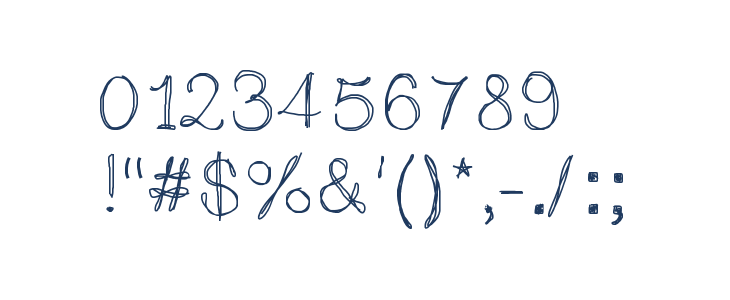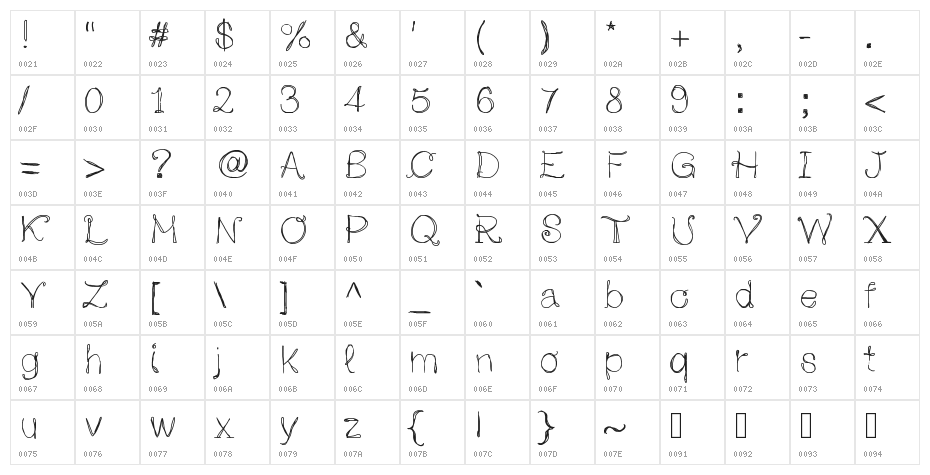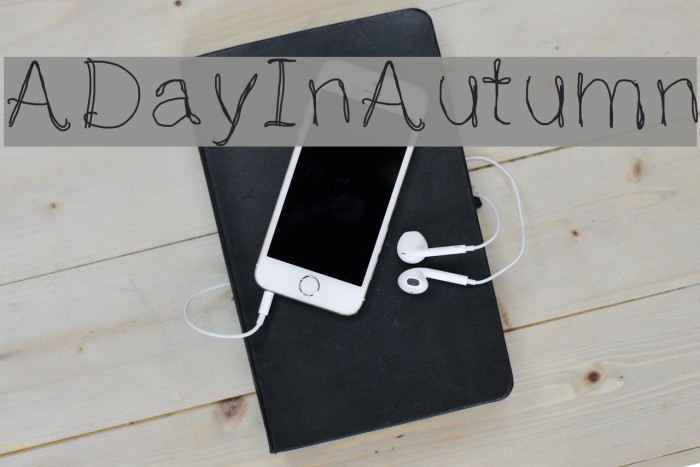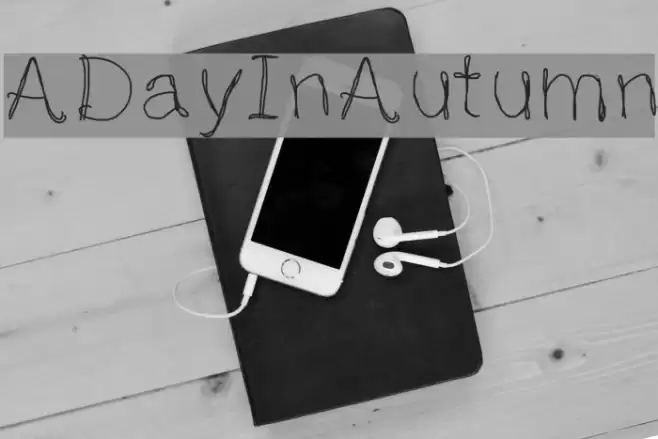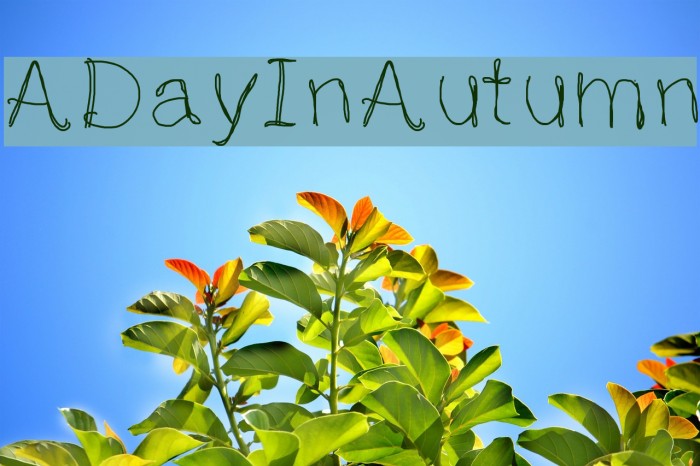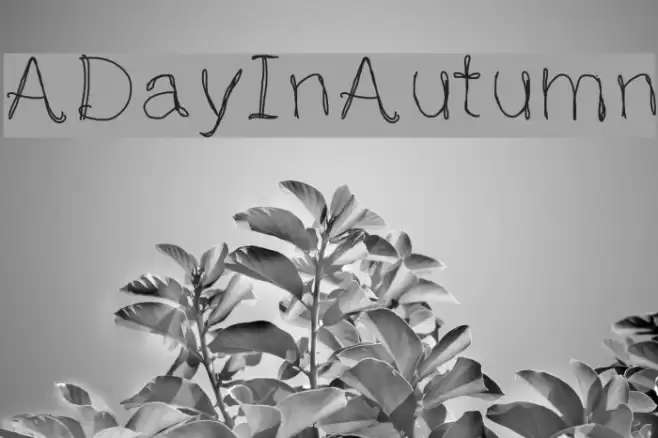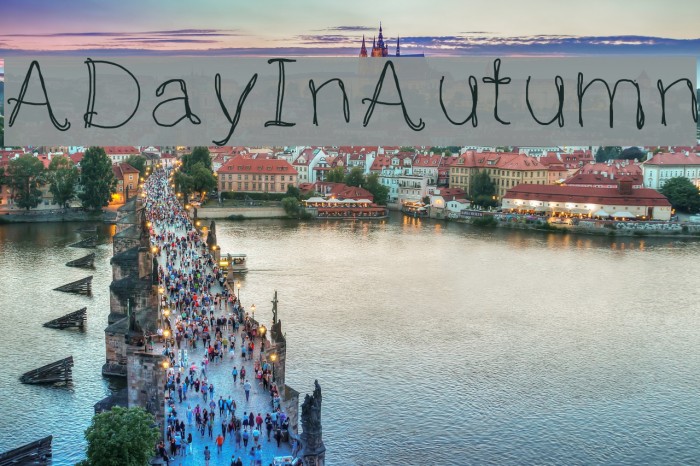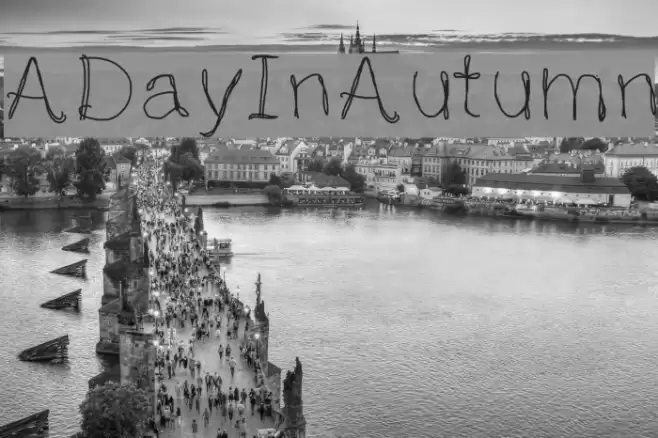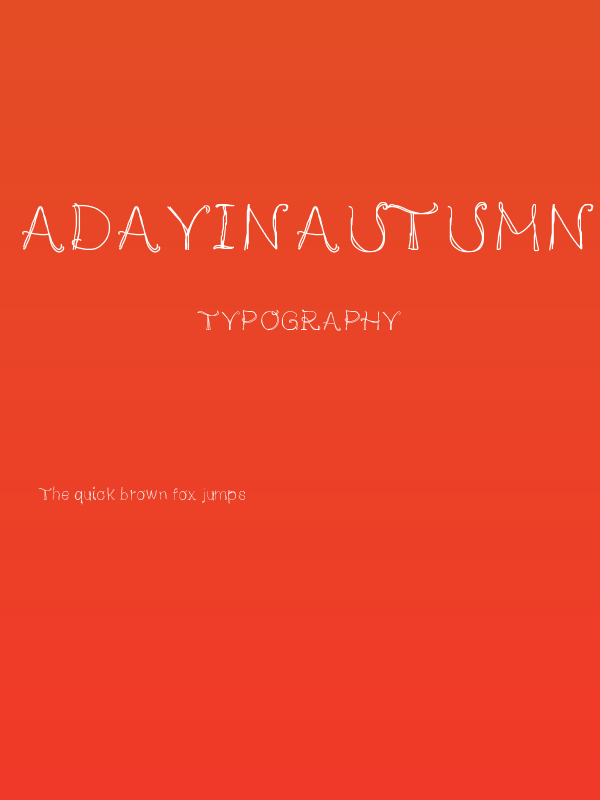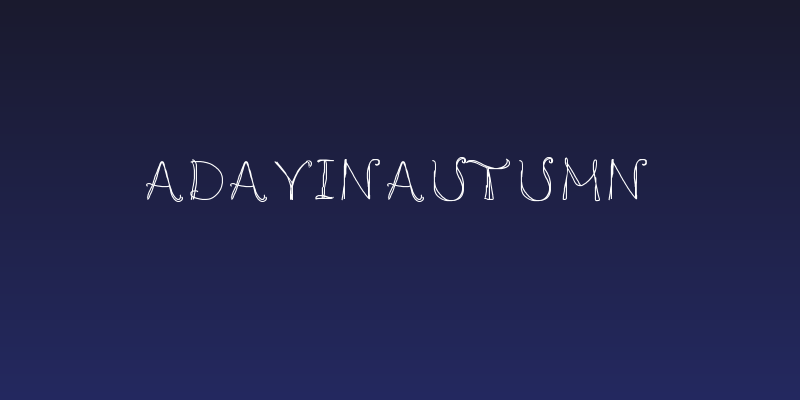
ADayInAutumn Font
ADayInAutumn Description
This font features a whimsical and playful design, characterized by its curly and looping strokes that give it a hand-drawn appearance. Each letter is uniquely crafted with a sense of movement and flow, reminiscent of vines or tendrils. The uppercase letters maintain a consistent height, while the lowercase letters vary slightly, adding to the organic feel. Numbers and special characters follow the same playful style, ensuring a cohesive look across all text. This font is perfect for projects that require a touch of creativity and individuality.
| Use Case | Headlines, Logos, Artistic projects |
| Proposed Projects | Ideal for greeting cards, children's book titles, creative posters, and artistic branding. |